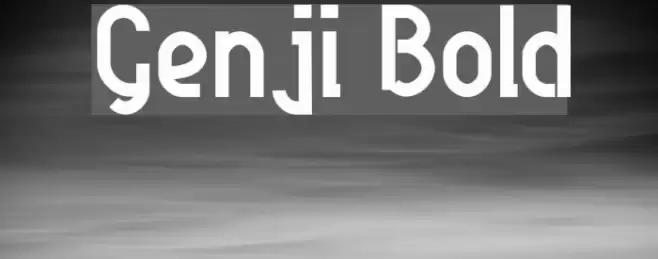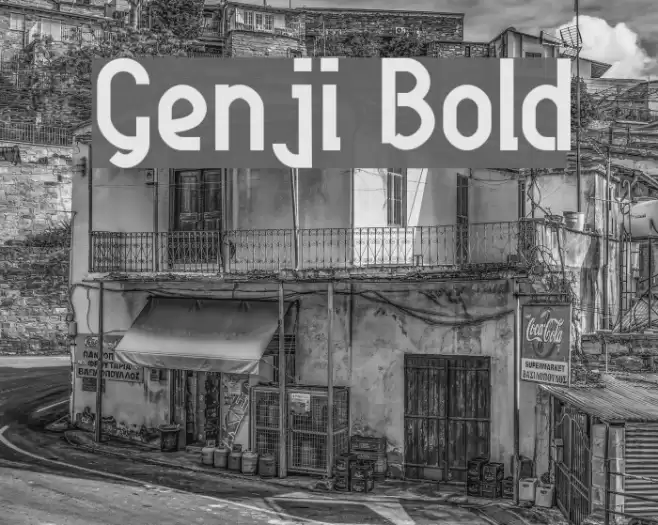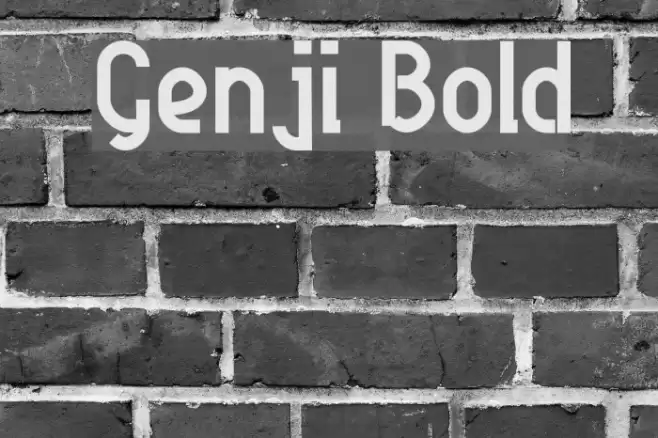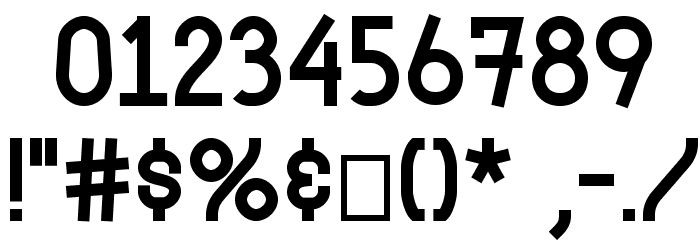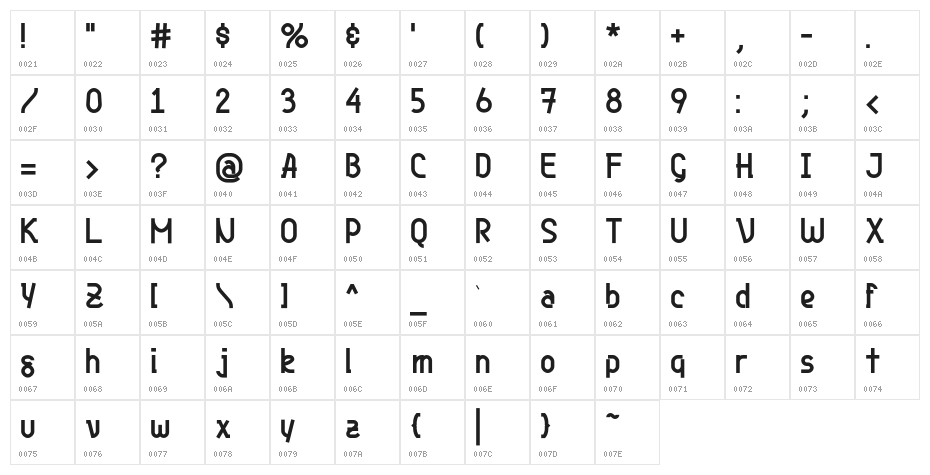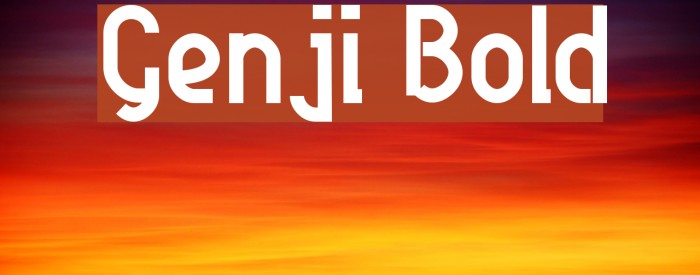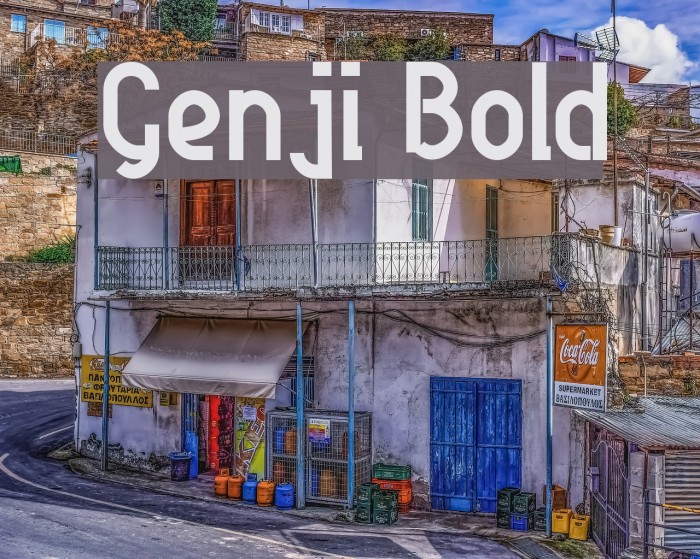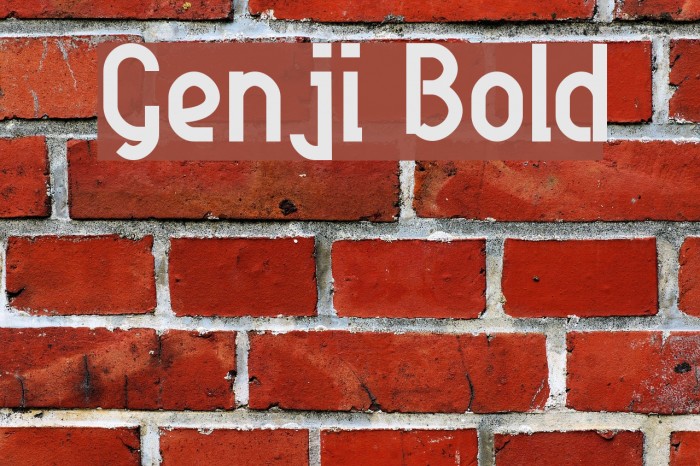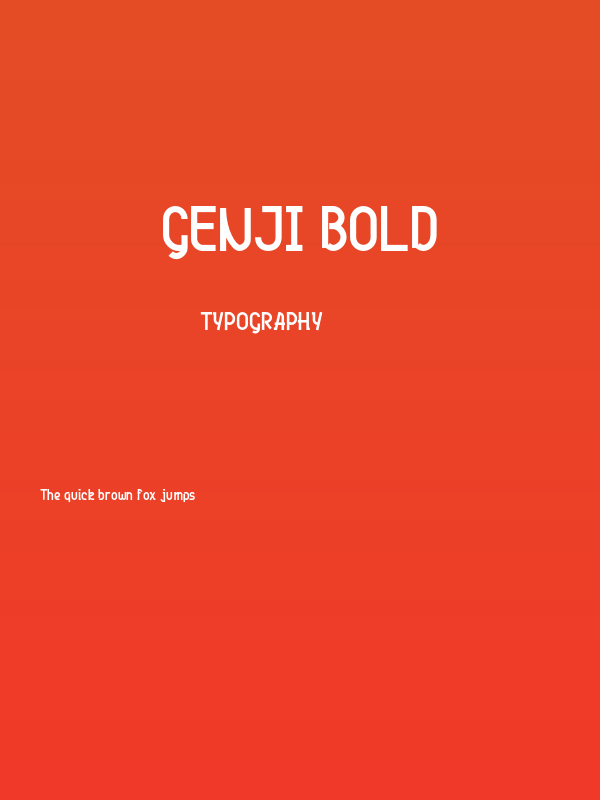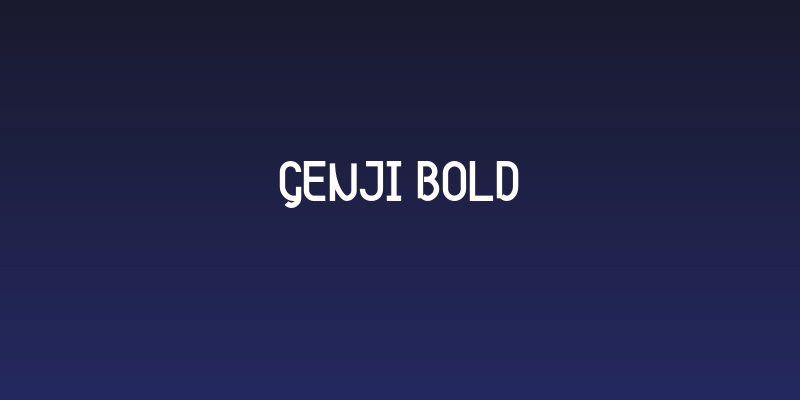
Genji Bold Font
Genji Bold Description
This font features a bold and geometric design, characterized by its strong, angular lines and uniform stroke widths. The uppercase letters are particularly striking, with a modern and futuristic appearance that is both eye-catching and easy to read. The lowercase letters maintain the same boldness, ensuring consistency throughout the typeface. The numerals are clear and distinct, making them suitable for a variety of applications. Special characters are included, adding versatility to the font. Overall, this typeface is well-suited for projects that require a bold and modern aesthetic.
A bold, geometric font with a modern and futuristic style from Uncategorized fonts.
- Proposed Projects: Ideal for branding, headlines, posters, and digital media requiring a strong visual impact.